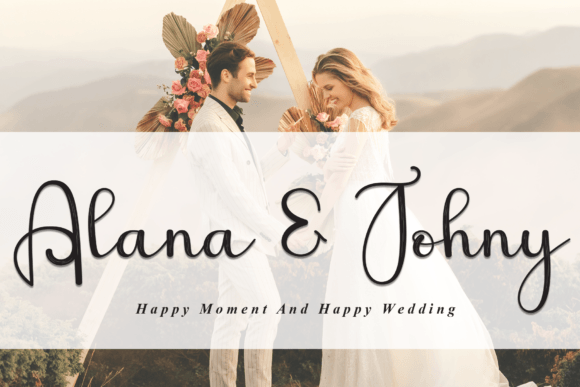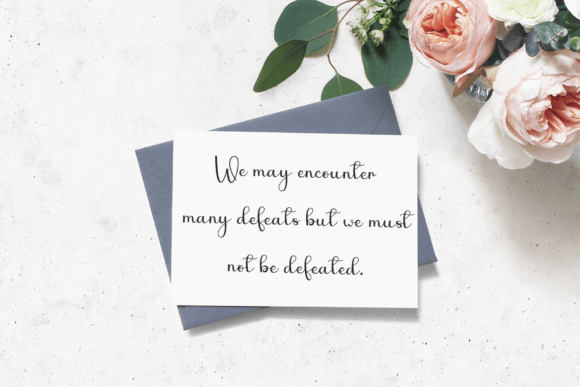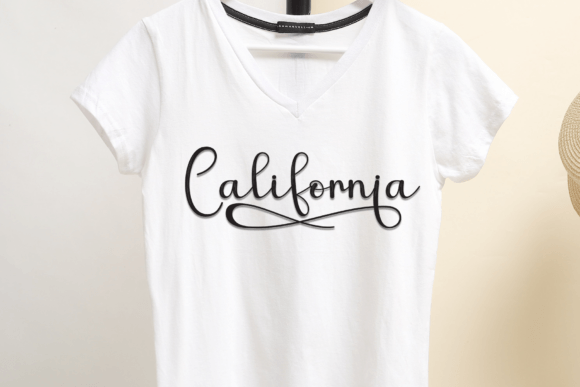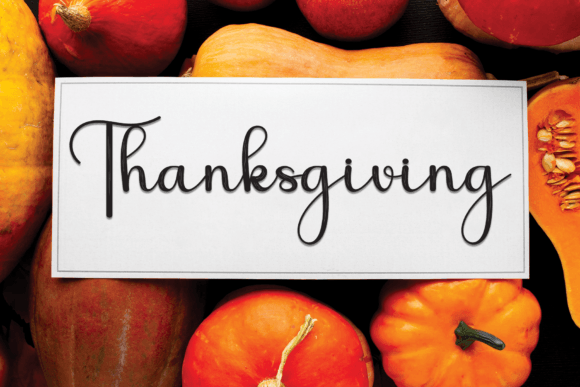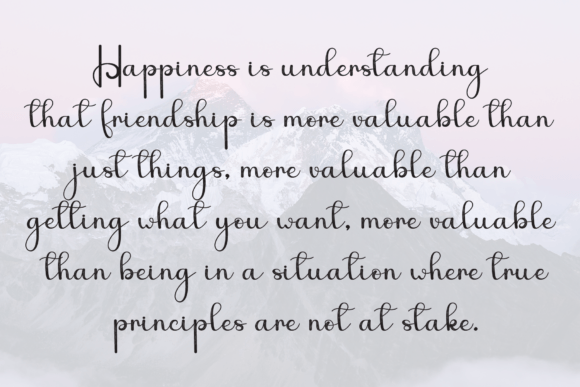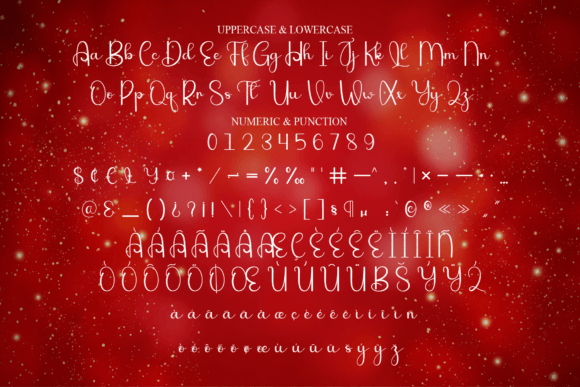
The Magic of Hello Christmas Font: Bringing Warmth to Your Designs
As a designer, you know the feeling of hitting that perfect creative spark. It’s the moment when all the pieces come together, and your vision takes shape. For me, that moment came when I stumbled upon the Hello Christmas Font. Its elegant, flowing script caught my eye, and I knew I had to learn more.
Created with the intention of evoking a sense of warmth and personality, Hello Christmas Font is a stylish script font that looks like handwriting. Whether you’re crafting a personal signature, designing a wedding invitation, or working on a creative project, this font adds a touch of charm and elegance. For designers, it’s a valuable asset that can elevate any design and make it truly special.
Hello Christmas Font Key Features
- Font Family: A custom-designed font family for the holiday season, featuring a festive and elegant style.
- Unique Characteristics: Features a distinctive, cursive-like script with intricate details and ornaments, perfect for adding a touch of holiday magic to your designs.
Hello Christmas Font Review
Overall, I think the Hello Christmas Font is a fun and festive option for holiday projects. Here are some things that work well:
- ✨ Unique and playful characters that evoke a sense of holiday cheer
- ✨ Great for adding a touch of whimsy to projects like greeting cards, social media posts, and gift tags
- ✨ Easy to read and understand, even at smaller font sizes
However, I do have a few concerns:
- ⚠️ Limited character set, which might make it difficult to use for longer blocks of text
- ⚠️ Some of the characters may not render correctly on all devices or browsers
- ⚠️ Not suitable for formal or professional projects, as it’s a bit too playful and casual
In general, I think the Hello Christmas Font is a great option for holiday-themed projects, but it’s not a good choice for longer texts or formal projects. If you’re looking for a fun and playful font to add some holiday cheer to your designs, this might be a good option.
Tip: Use the “Hello Christmas Font” as a title or heading to add a festive touch to your designs.
Tip: Use the “Hello Christmas Font” to create custom holiday cards, invitations, or gift tags.
Tip: Use the “Hello Christmas Font” to add a festive touch to your holiday presentations or documents.
The “Hello Christmas Font” is ideal for:
- Creating custom holiday cards and invitations.
- Designing festive gift tags and wrapping paper.
- Adding a holiday touch to presentations and documents.
Alternatives to Hello Christmas Font
Great Vibes Font is a modern and elegant script font, perfect for adding a touch of sophistication to your holiday designs. It features a flowing, handwritten feel that works well for invitations, greeting cards, and social media graphics. Compared to Hello Christmas Font, Great Vibes Font has a more refined and polished look, making it ideal for high-end designs.
Carolyna Pro Font is a beautiful, modern script font with a vintage flair. It features a unique blend of elegance and playfulness, making it perfect for holiday designs that require a touch of whimsy. Compared to Hello Christmas Font, Carolyna Pro Font has a more dynamic and expressive feel, making it ideal for designs that need to stand out.
Alex Brush Font is a elegant, handwritten script font with a natural, organic feel. It features a flowing, cursive style that works well for invitations, greeting cards, and other holiday designs. Compared to Hello Christmas Font, Alex Brush Font has a more subtle and understated look, making it ideal for designs that require a touch of sophistication without being too flashy.